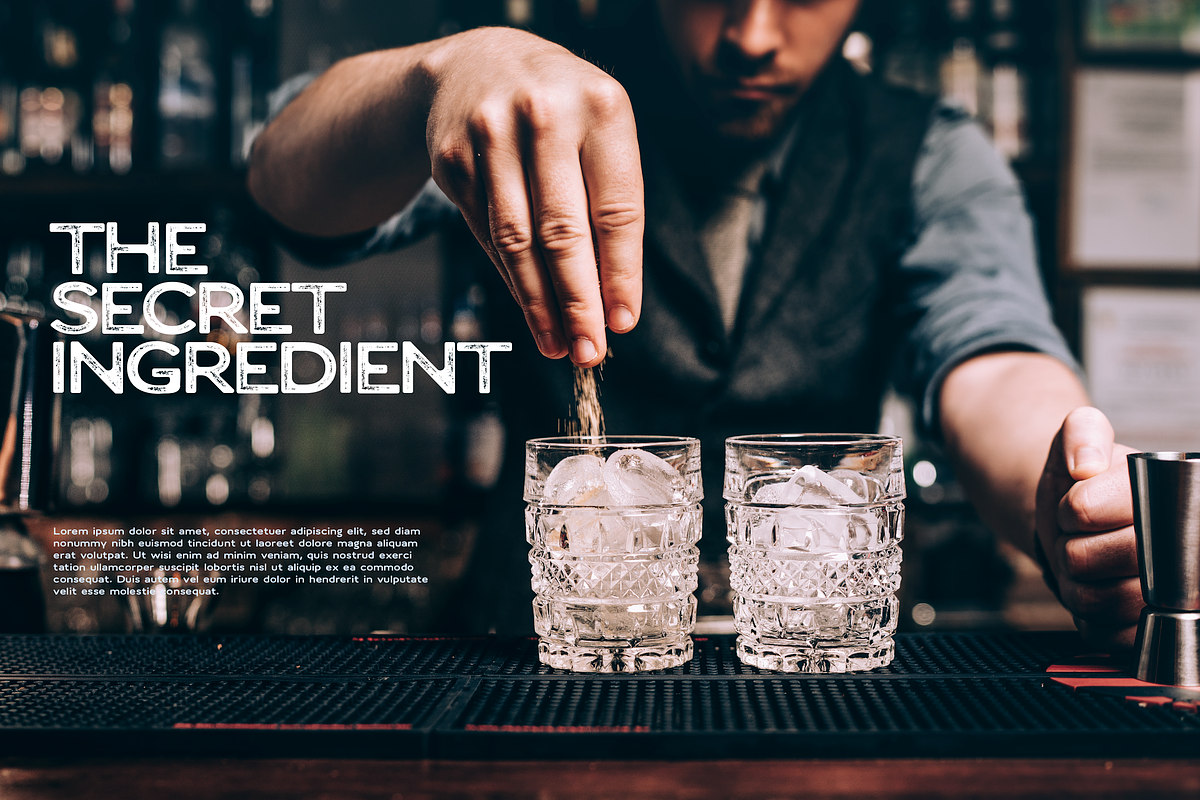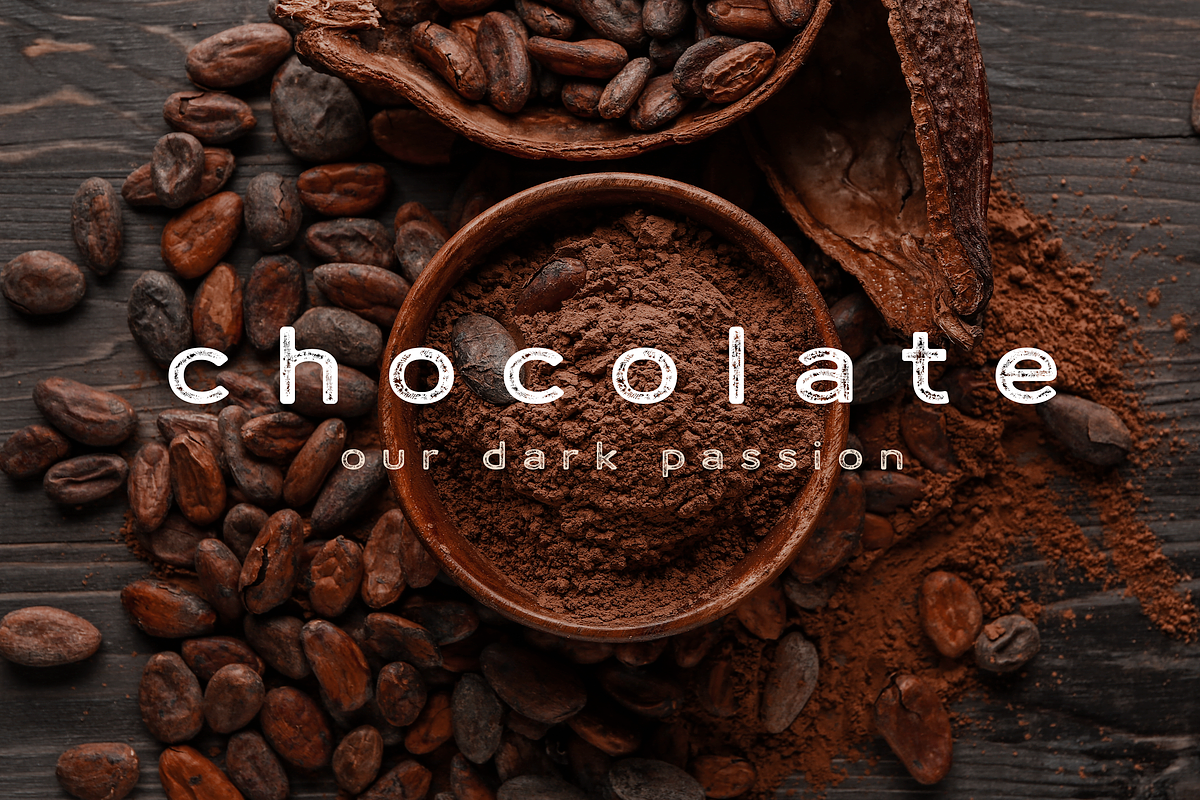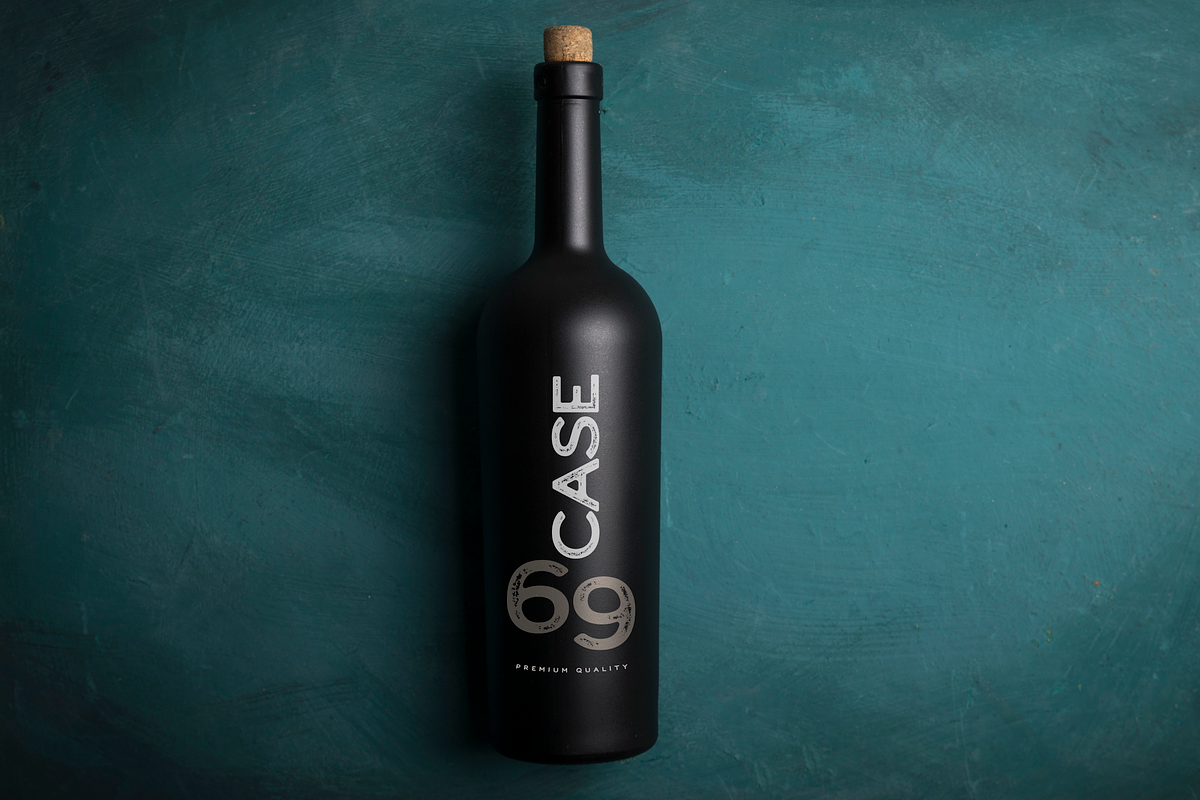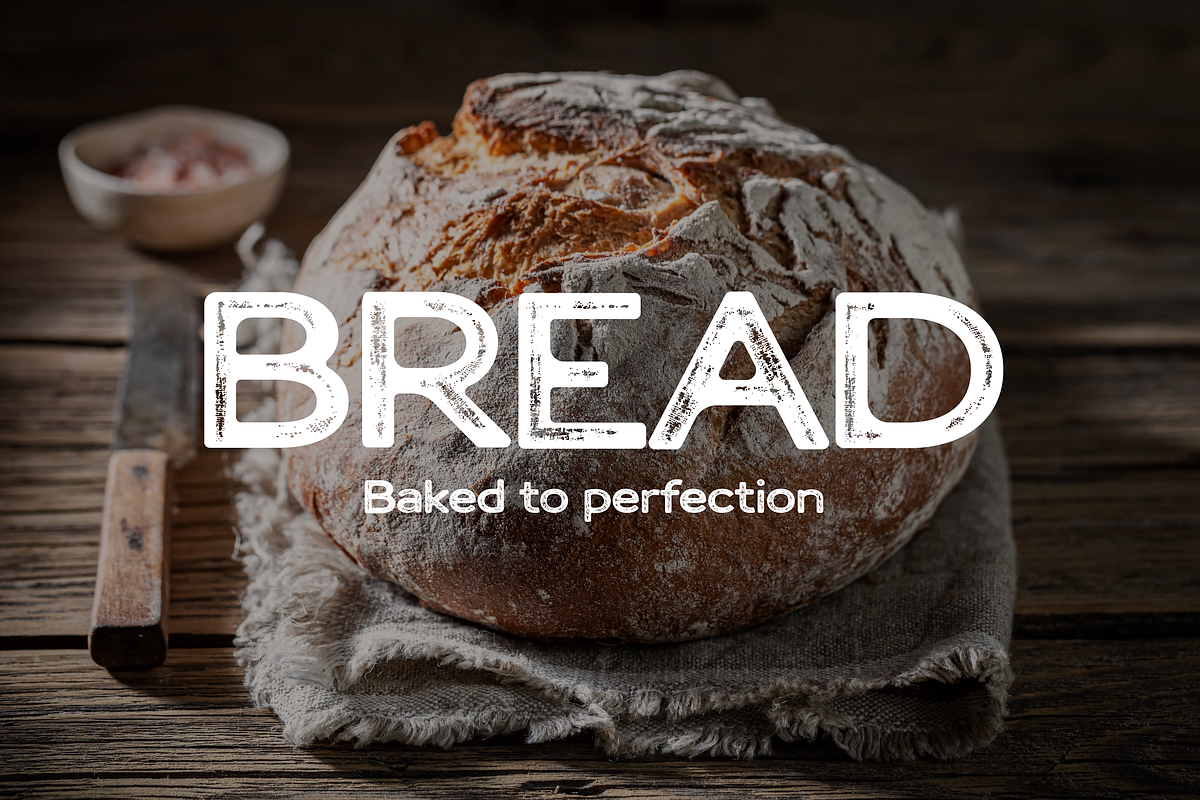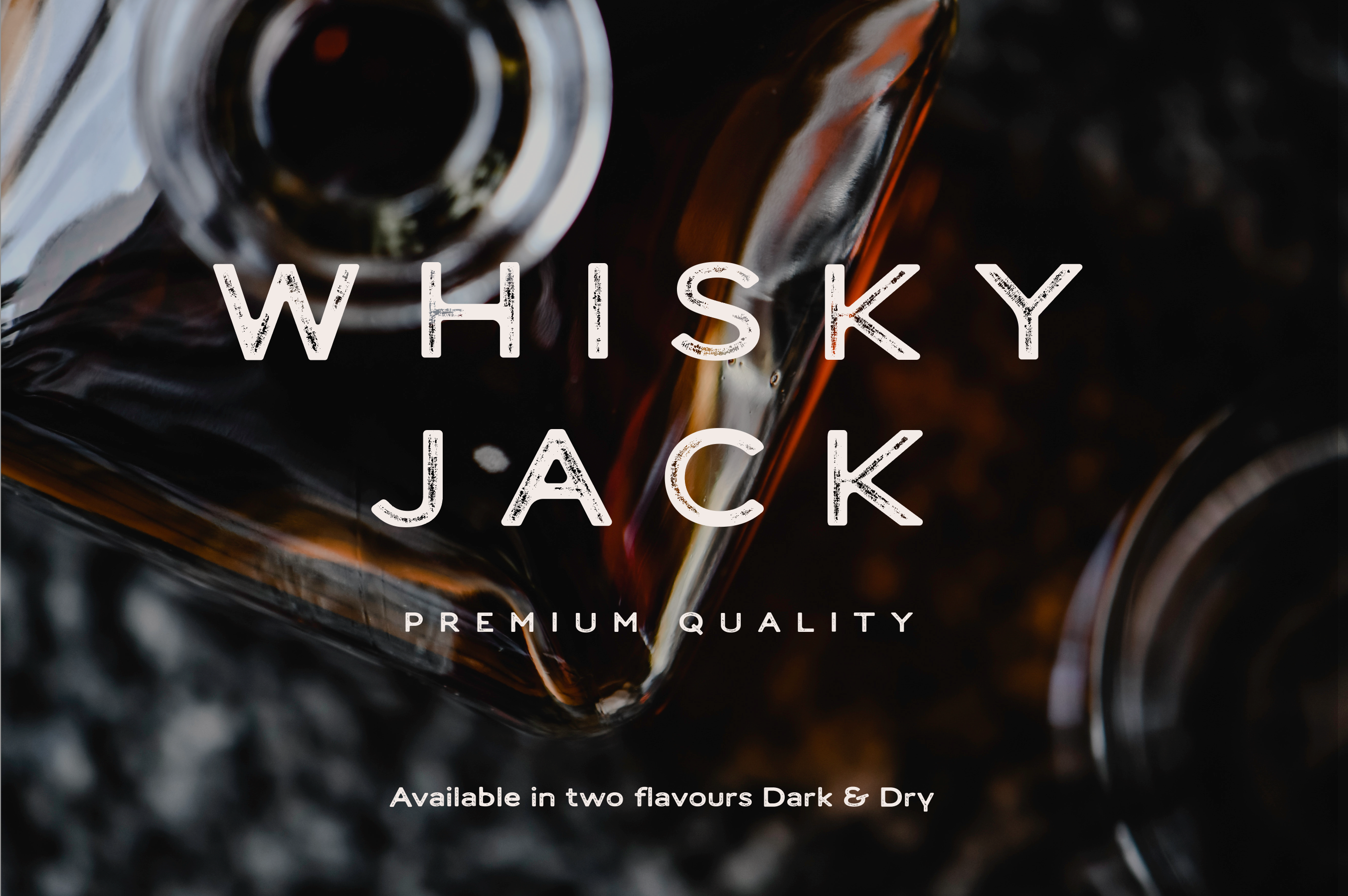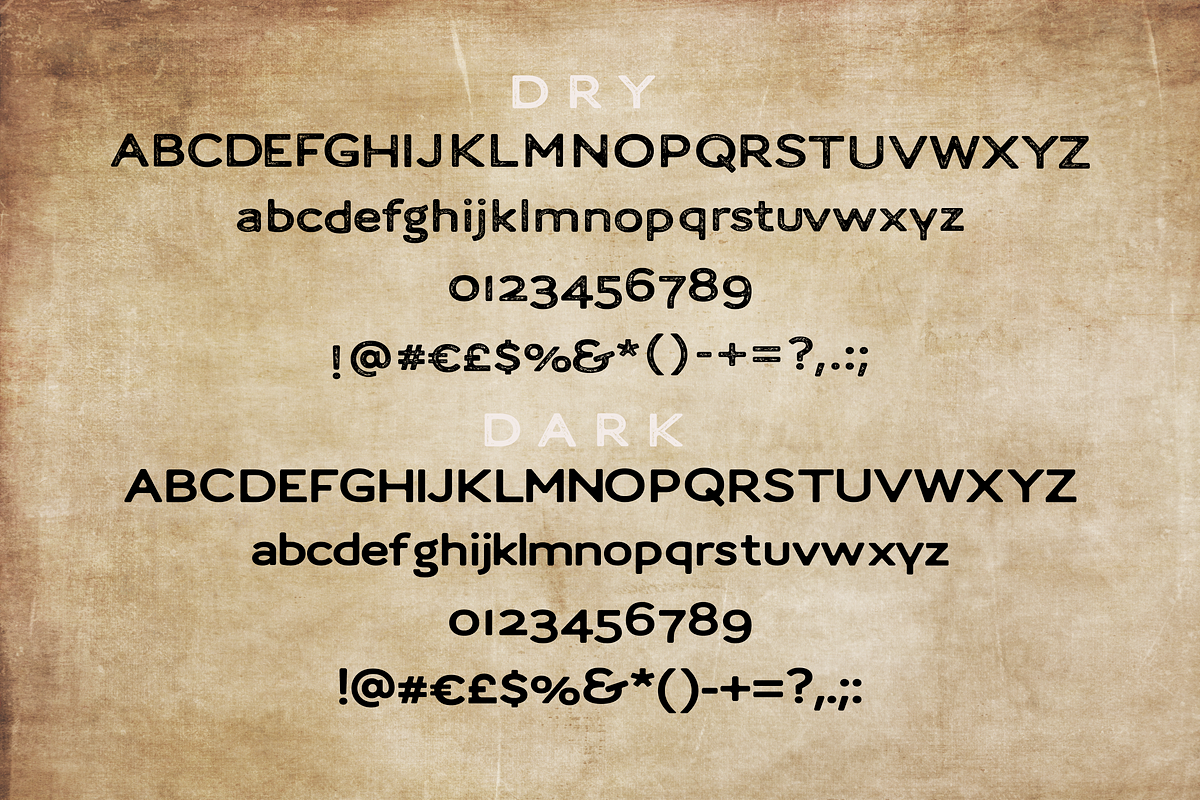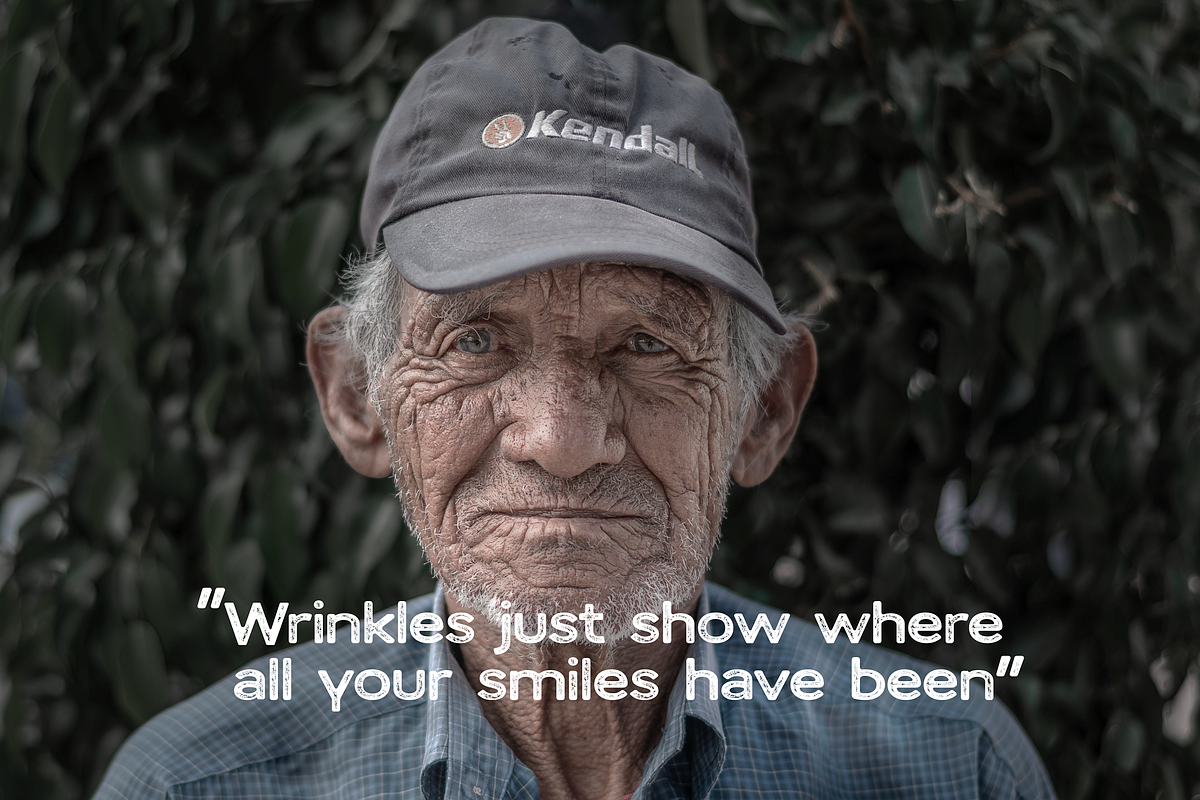
Whisky Jack Font
A Whisky inspired font. This time something tasty. A rich and rugged Whisky Jack font, that comes in two flavours DARK and DRY. A sans serif font distressed in shape and texture to give a warm, earthy, rustic feel.